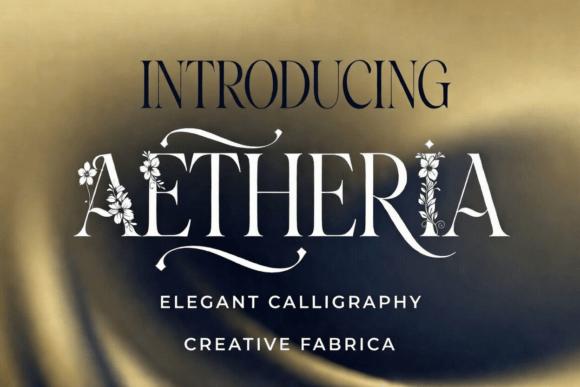
Discover the Elegance of Aetheria Font: A Designer’s Dream
Have you ever been in the middle of a design project, and suddenly, you just can’t seem to find the right font? I recall a particularly frustrating experience while working on a branding project for a luxury floral shop. My client wanted a font that exuded elegance, sophistication, and a touch of romance. That’s when I stumbled upon Aetheria Font, and it completely transformed my design.
Unveiling Aetheria: A Botanical Display Font
Aetheria is an elegant botanical display font that introduces a touch of breathtaking romance and sophistication to your designs. This beautiful, high-contrast serif typeface is characterized by delicate floral silhouettes woven gracefully into the letters and sweeping, calligraphic swashes that add a luxurious, custom feel to your typography.
What I Love About Aetheria ✨
- 💃 Elegant and sophisticated design, perfect for feminine branding
- 🌿 Delicate floral silhouettes woven into the letters, adding a touch of natural elegance
- 🖋️ Sweeping, calligraphic swashes that add a luxurious, custom feel to typography
- ✅ High-contrast serif typeface, ideal for display text and headlines
While Aetheria is an exceptional font, there are a few minor quirks to be aware of:
- 🤔 Some users may find the font challenging to read at smaller sizes due to its high-contrast design
- ⚠️ Limited use of Aetheria for body text, as it’s primarily designed for display purposes
The Story Behind Aetheria
Aetheria was designed by a talented type designer who drew inspiration from the natural world. The font’s creator wanted to capture the essence of botanical elegance and translate it into a typographic form. The result is a font that exudes sophistication, romance, and a touch of whimsy.
| What is Aetheria font best used for? | Aetheria is ideal for feminine branding, luxury display text, and creative projects that require a touch of elegance and sophistication. |
| Is Aetheria suitable for body text? | While Aetheria is primarily designed for display purposes, it can be used for short paragraphs of text. However, it’s recommended to use a clear, legible font for body text. |
| Does Aetheria support OpenType features? | Yes, Aetheria supports OpenType features, including glyphs, swashes, and stylistic alternates, allowing you to customize your typography. |